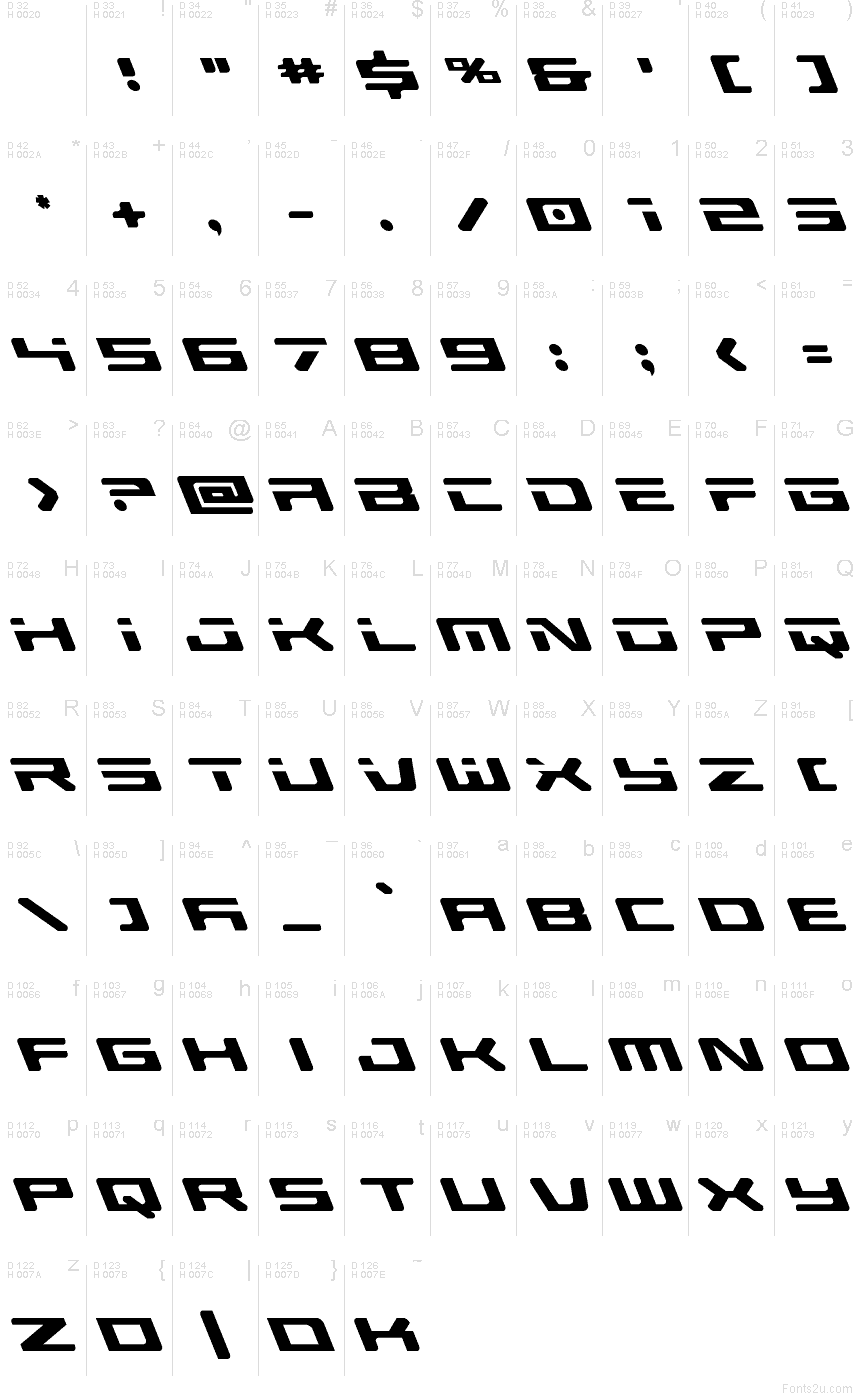
Race Pod Leftalic
Race Pod Leftalic font by Iconian Fonts is a free futuristic display typeface that slams on the brakes of convention with its sharp, left-leaning slant. Each letter looks like it’s caught mid-drift, with thick, blocky strokes and sliced corners that feel like panels on a sci‑fi race car. Tight spacing and angular cuts create a sense of motion even when the text is standing still, giving headlines a bold, mechanical edge.
Using Race Pod Leftalic, you can brand esports teams, racing events, gaming overlays, sci‑fi movie titles, tech merch, and bold poster campaigns that need loud, directional energy. This free font shines on banners and streaming graphics where speed and attitude matter more than subtlety. Pair it with a clean, neutral sans serif in a smaller size for body copy, and let Race Pod handle the high-impact moments.